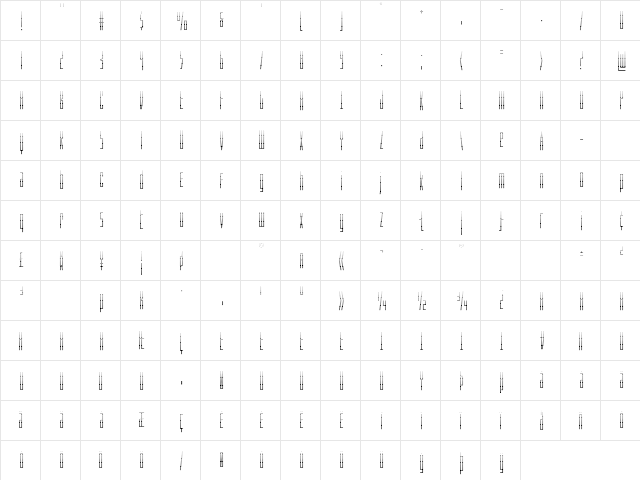
Phantacon Gradient Regular
Design Context for Phantacon Gradient Typeface
Phantacon Gradient is a composed and adaptable typeface that performs quietly and consistently across a wide range of design contexts.